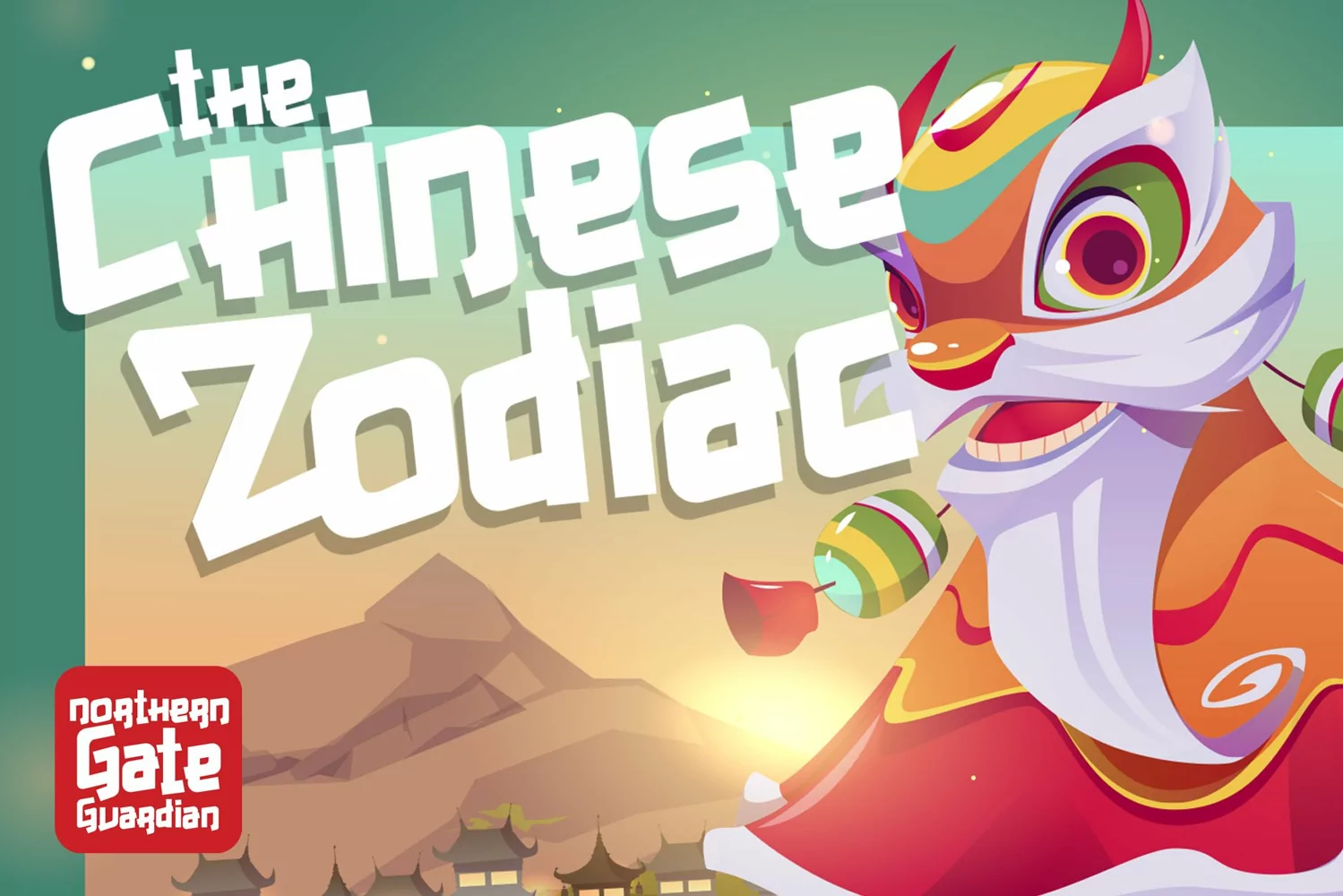
**Bingana**
This pair was inspired by kids movie poster design that i saw on some gallery, It was crafted by hand specially to add natural handmade feeling in its brand identity than i make it clean with pentool.
We improve with handmade to make a playful feel, this font is bold so it can look strong if you use it for branding or even title for your poster design with playful decorative style.
Bingana font has 175 character set included Bingana Font is very good looking in playful decorative logotype, labels, t-shirt prints, product packaging, invitations, advertising and others.
If you looking for a playful logotype font, this item is a great choice to make your design authentic and unique.